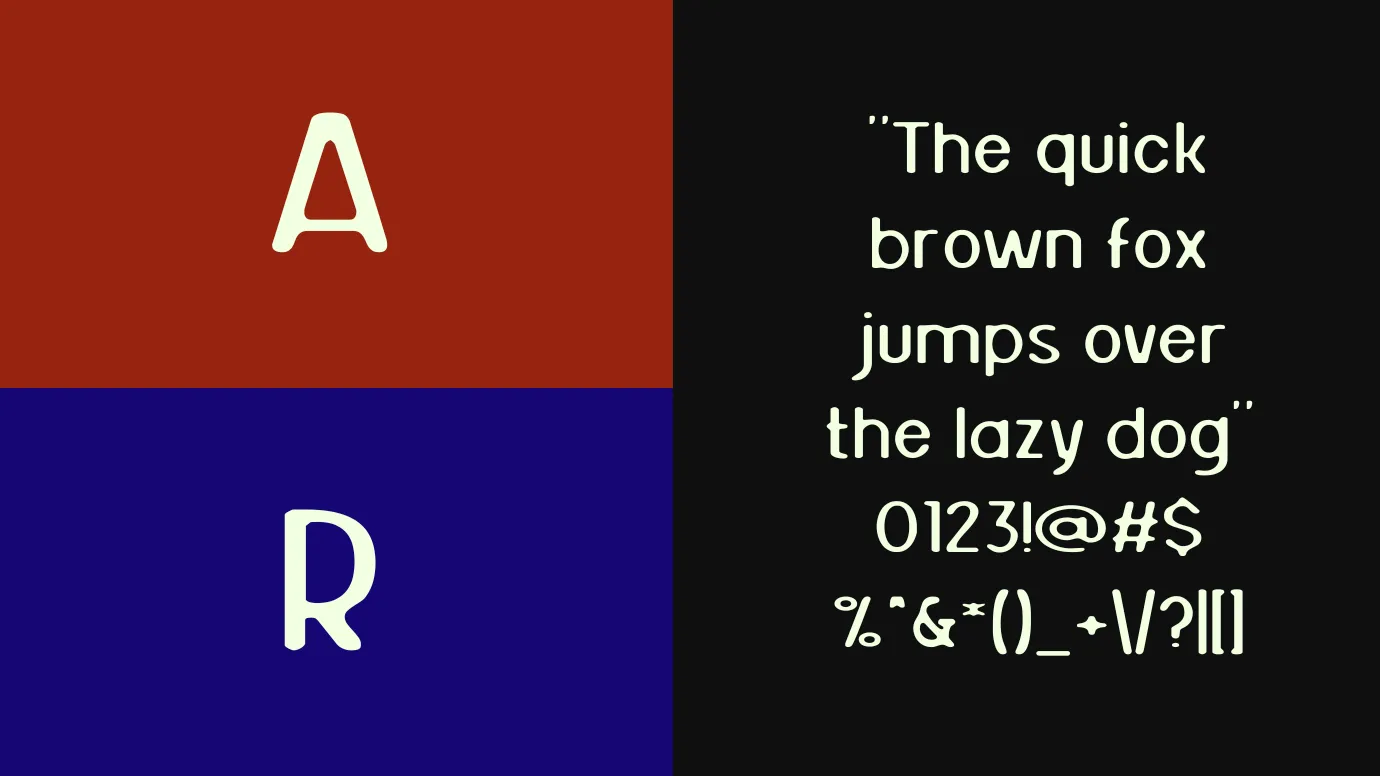
Gihun Font is a very neat and clean Sans-Serif typeface. This amazing font was designed by Khurasan. The look of this typeface is very neat and clean so you can make high readability projects as well.
Gihun Font